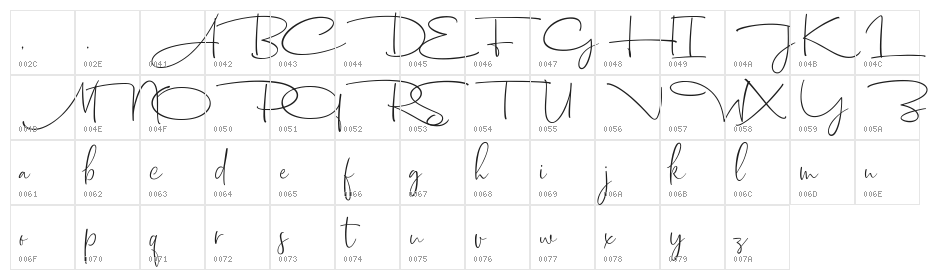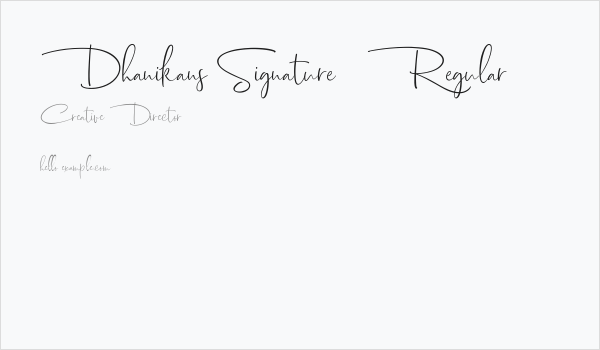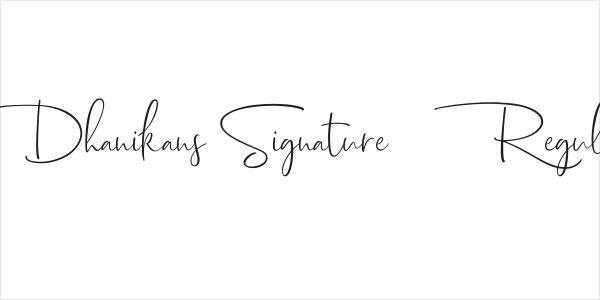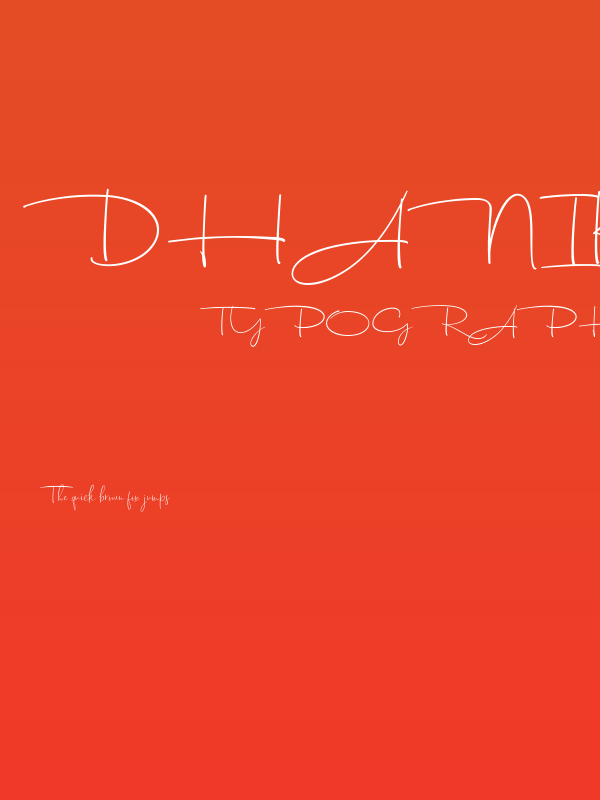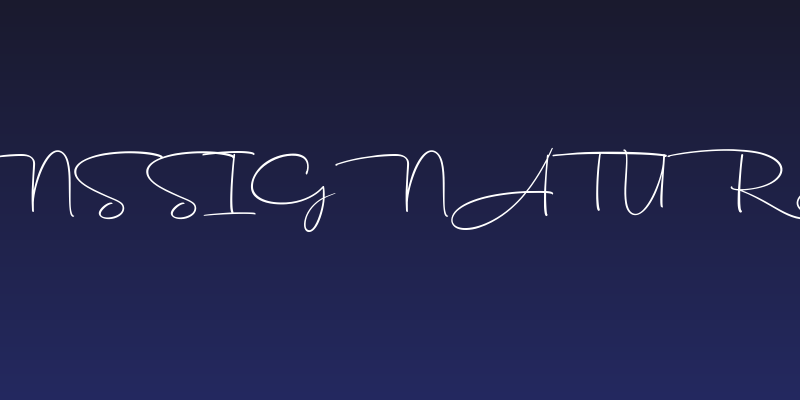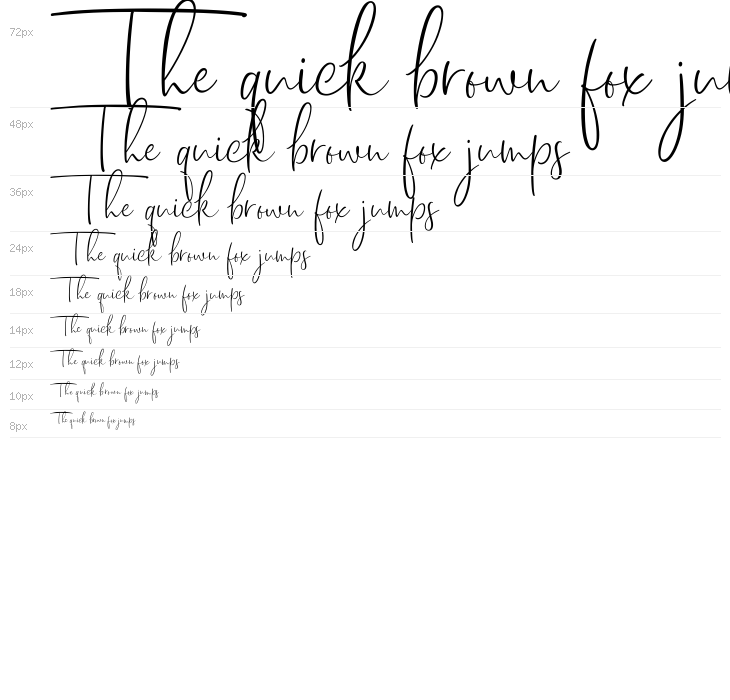
Dhanikans Signature 2 Regular Font
Dhanikans Signature 2 Regular Description
This font exudes elegance and sophistication with its flowing, cursive style. The letters are intricately connected, creating a seamless and fluid appearance. The uppercase letters are slightly more elaborate, with extended loops and swirls that add a touch of flair. The lowercase letters maintain a consistent height, contributing to a balanced and harmonious look. This font's delicate strokes and graceful curves make it ideal for projects that require a personal and artistic touch. Its overall aesthetic is both modern and timeless, making it versatile for various design applications.
| Overall Style | Elegant, Artistic |
| Proposed Projects | Ideal for wedding invitations, personal branding, elegant logos, and artistic projects. |